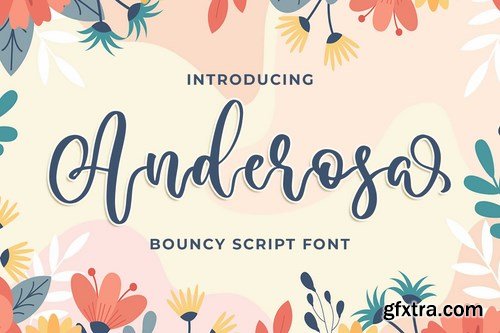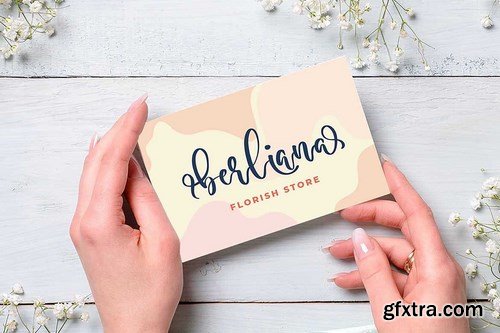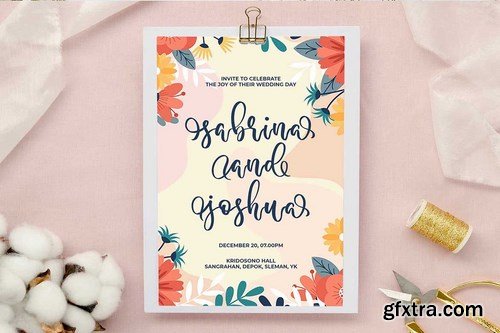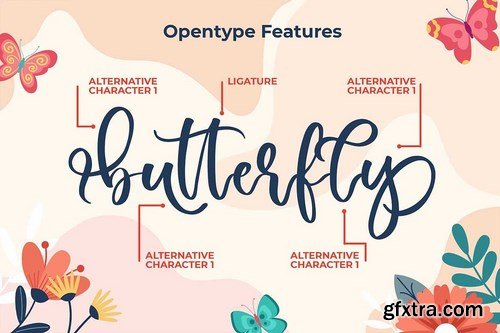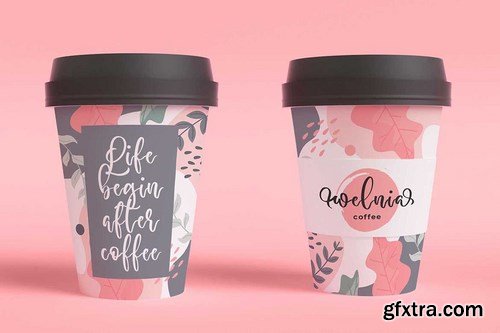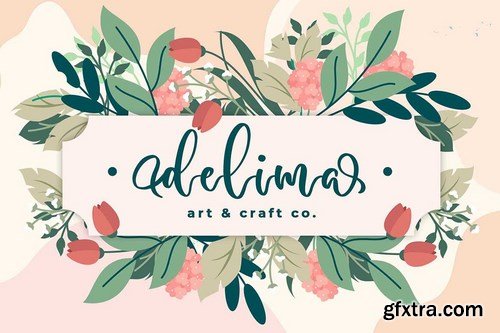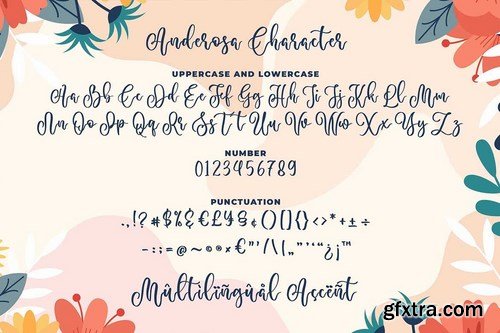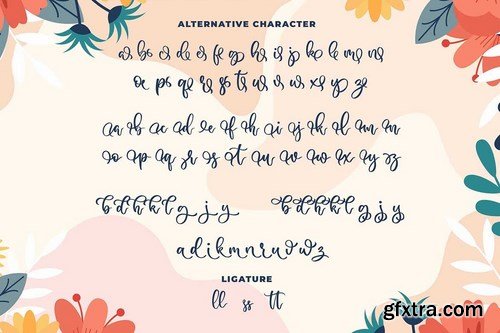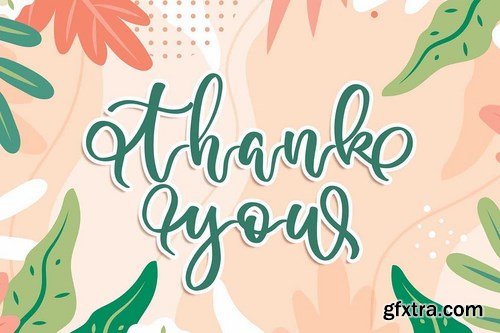
Introducing of our new product the name is Anderosa a Bouncy Script Font. Anderosa inspired by modern calligraphy style this font is a fun theme very good for display, wedding, valentine theme, logotype and etc